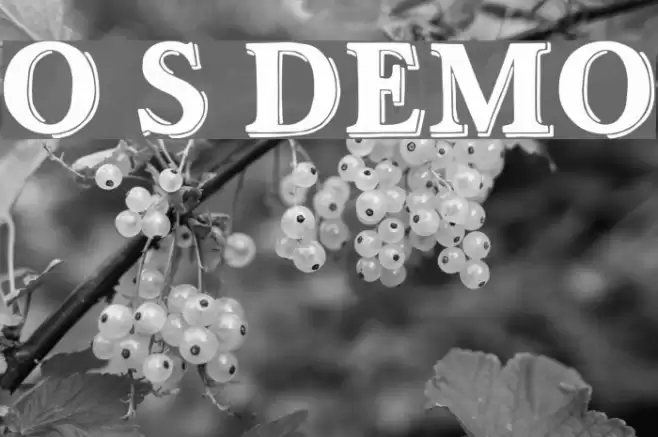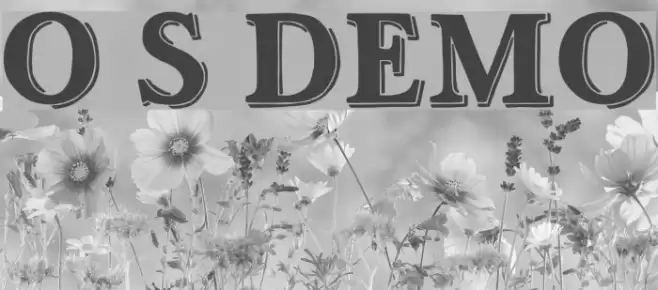
Ottanio Shaded DEMO Font
Ottanio Shaded DEMO Description
This font features a bold and striking serif style with a distinct shaded effect that adds depth and dimension to each character. The uppercase letters are prominently displayed with strong, angular serifs that give a sense of authority and elegance. The shading is consistent across all characters, providing a uniform appearance that enhances readability while maintaining a decorative flair. The font's design is reminiscent of vintage signage, making it ideal for projects that require a touch of classic sophistication. Its bold presence makes it suitable for headlines, titles, and any design that aims to capture attention with a sense of grandeur.
A bold serif font with a shaded effect, ideal for vintage and decorative projects from Uncategorized fonts.
- Proposed Projects: Perfect for vintage posters, book covers, branding, and any project needing a classic, bold statement.
- Overall Style: Vintage